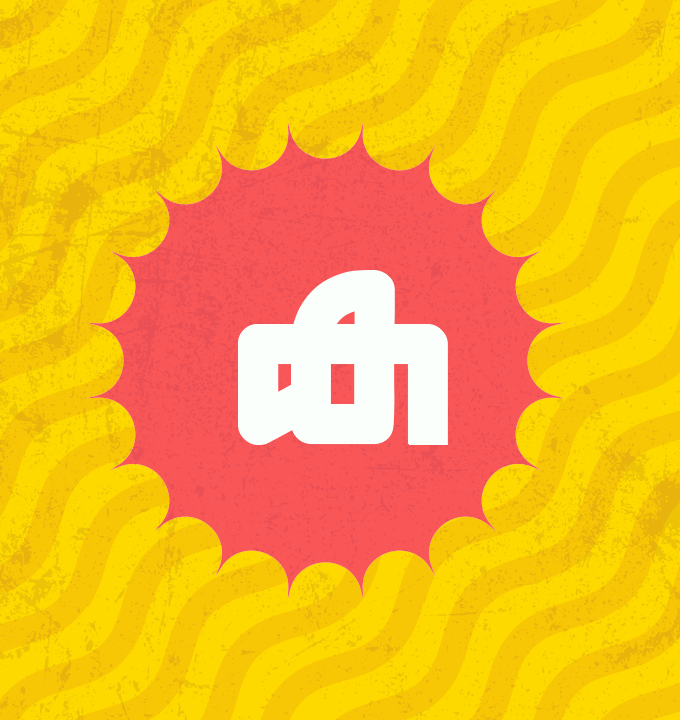
FSL NEWTON FONT
is a modern Malayalam Unicode font created to be clear, elegant, and highly versatile. It’s designed for use in branding, print, and digital media, with four thoughtfully crafted styles—Regular, Regular Italic, Bold,Rush and Bold Italic—so designers can easily shape tone and hierarchy. fsl newton font and fsl newton rush The typeface respects traditional Malayalam forms while giving them a clean, structured look, which helps it stay readable and visually strong in all kinds of layouts. Thanks to smooth Unicode support on Windows, Mac, Android, and iOS, FSL NEWTON and fsl newton rush works well for modern branding, social media, editorial design, and user interface projects. Available in both OTF and TTF formats, it feels like a natural blend of cultural heritage and today’s design needs.
- font style Regular,Rush, Regular Italic, Bold, and Bold Italic,